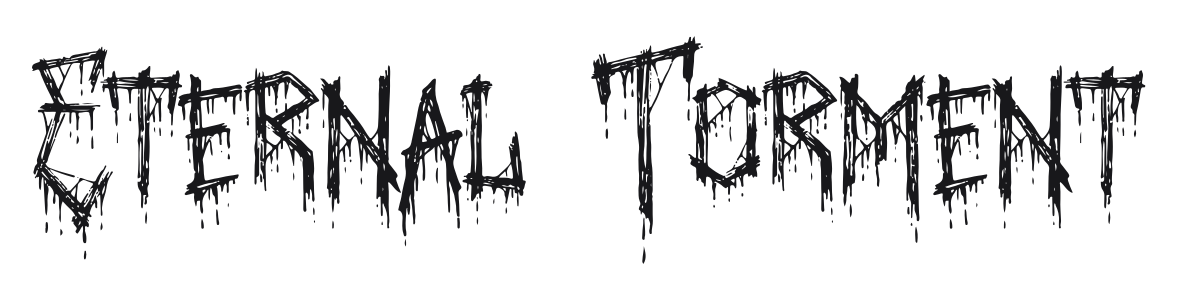
Eternal Torment
Eternal Torment is a heavy horror display font built from scratched, torn strokes with prominent drips hanging from every character. The damage is dense and consistent, giving it the look of letters painted in something unsettling and left to run. Strong in posters, album covers, and anything that needs a genuinely threatening tone.